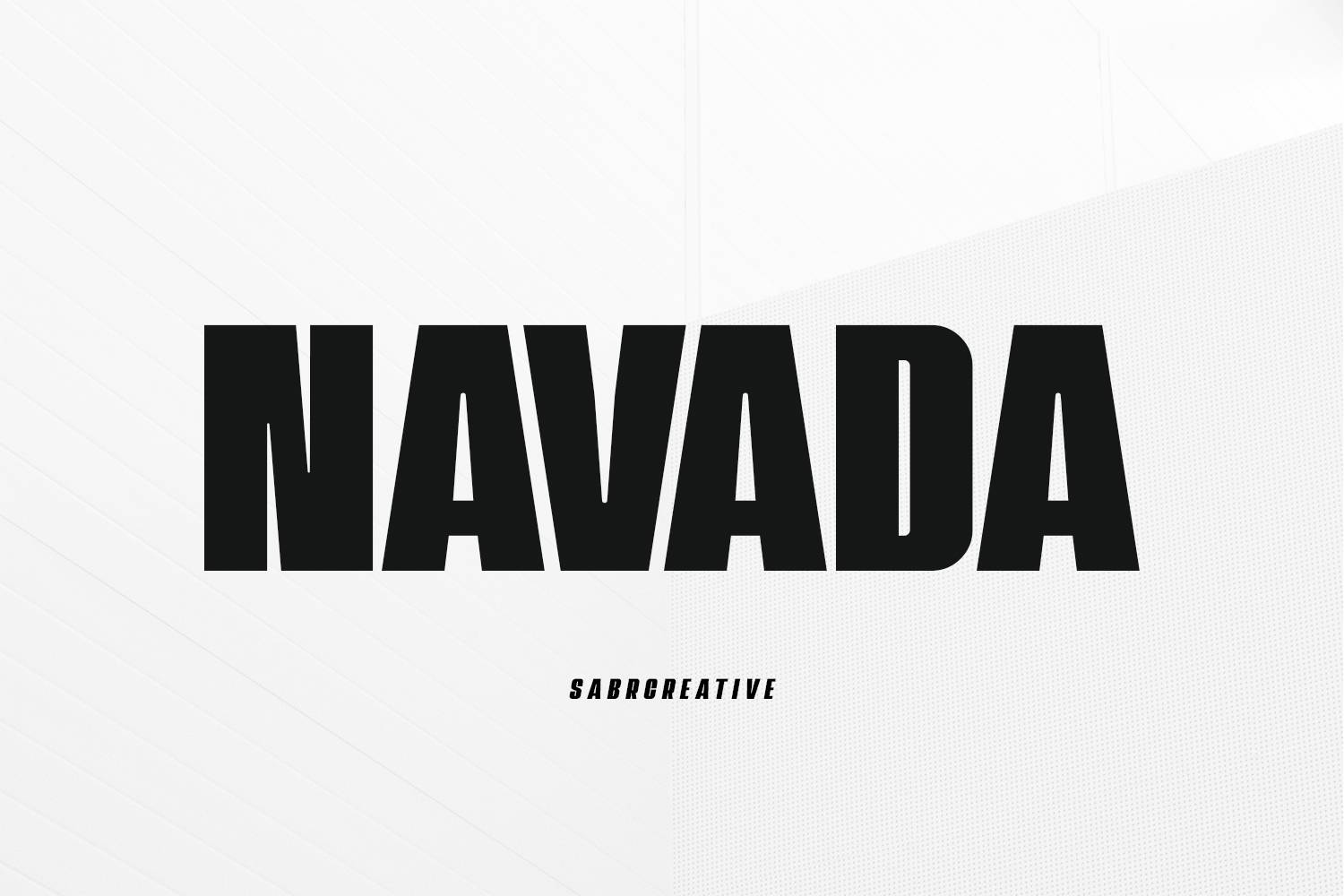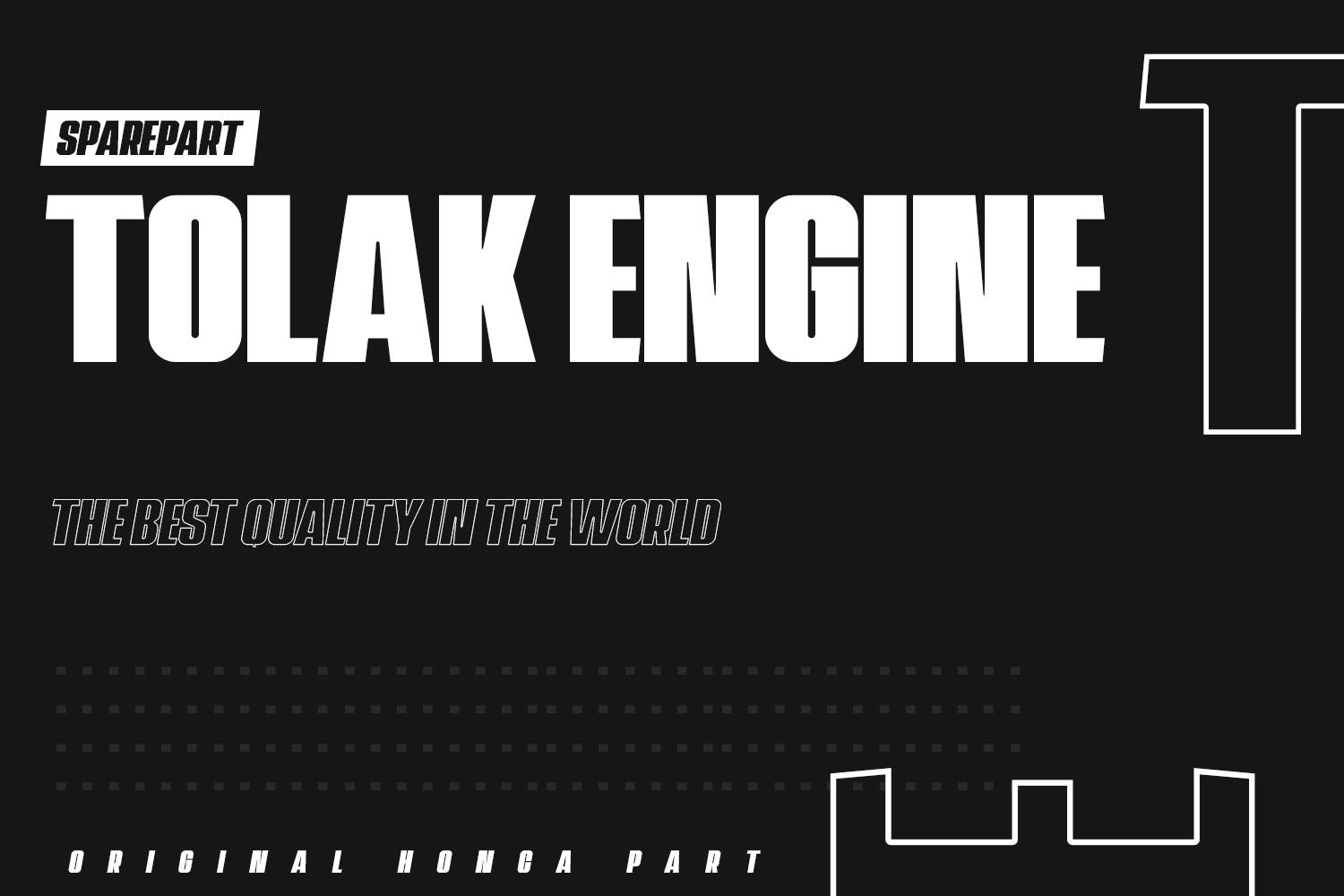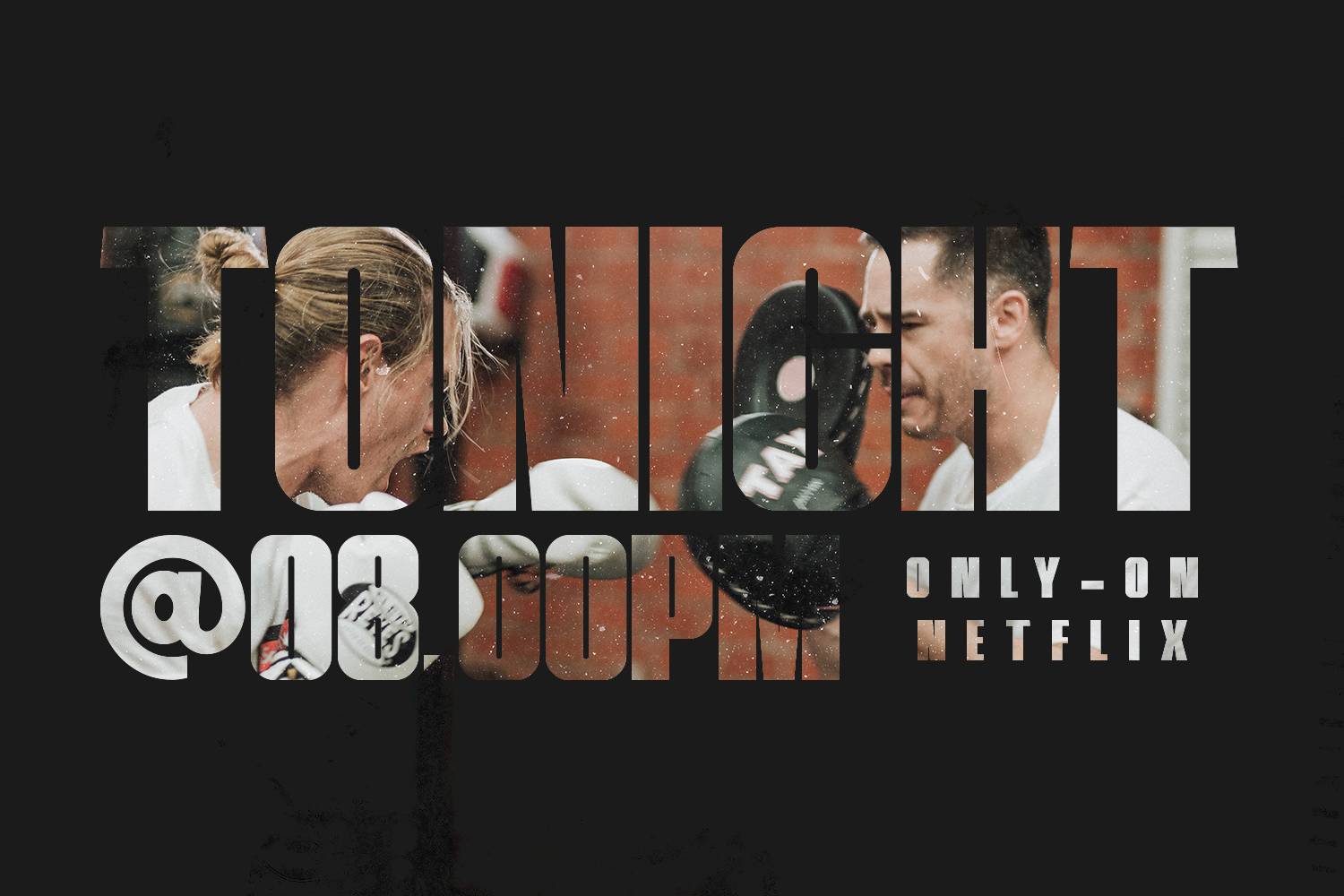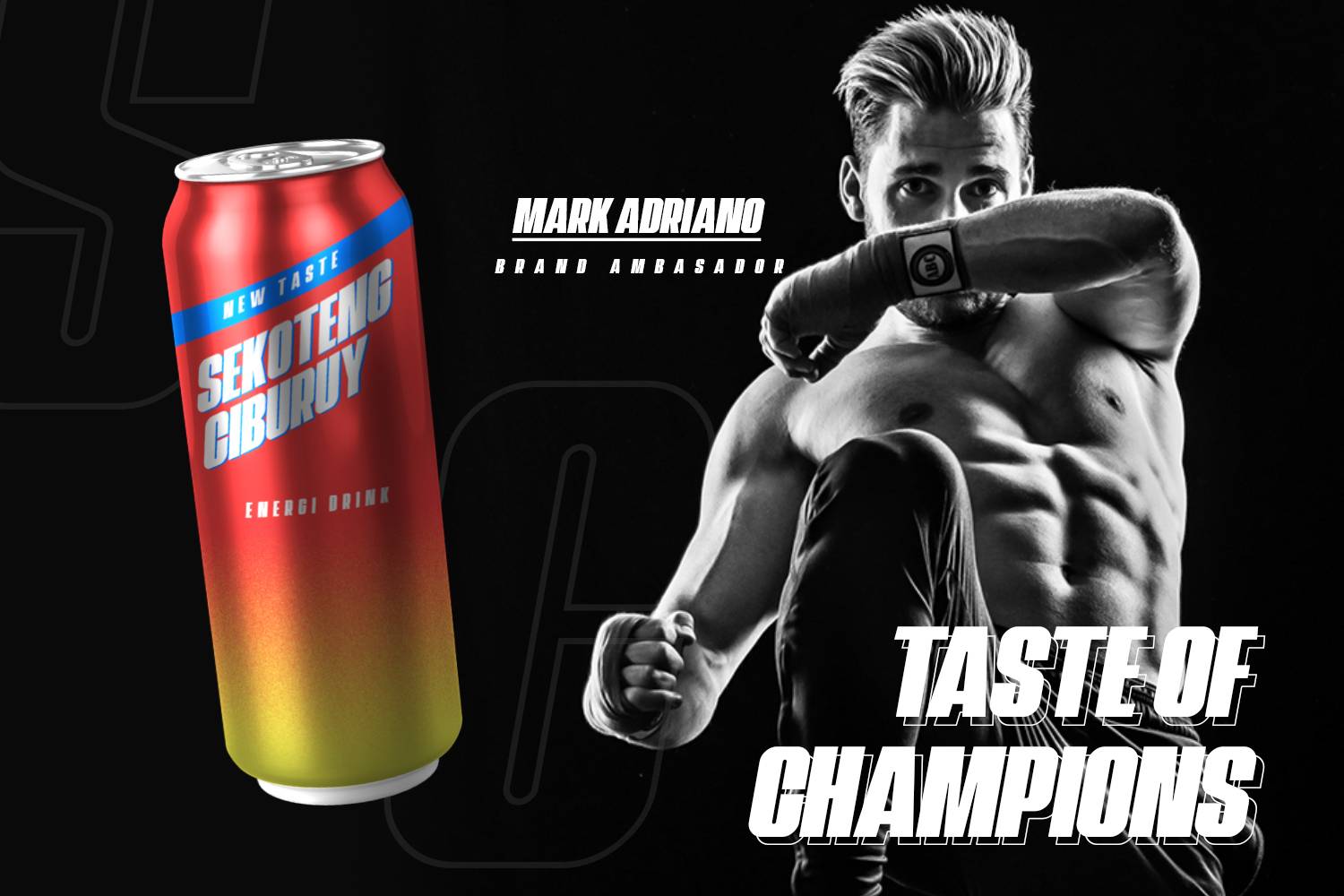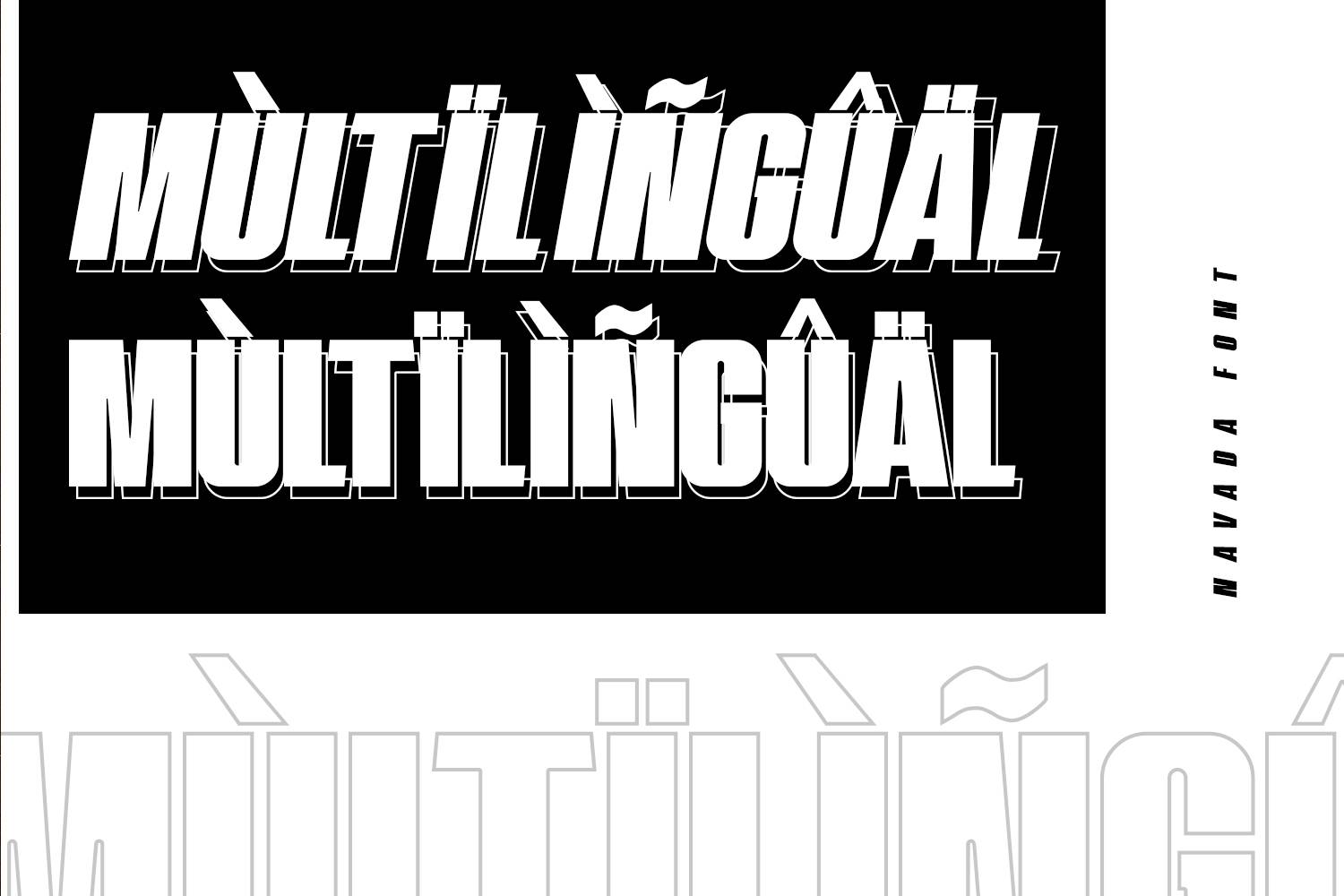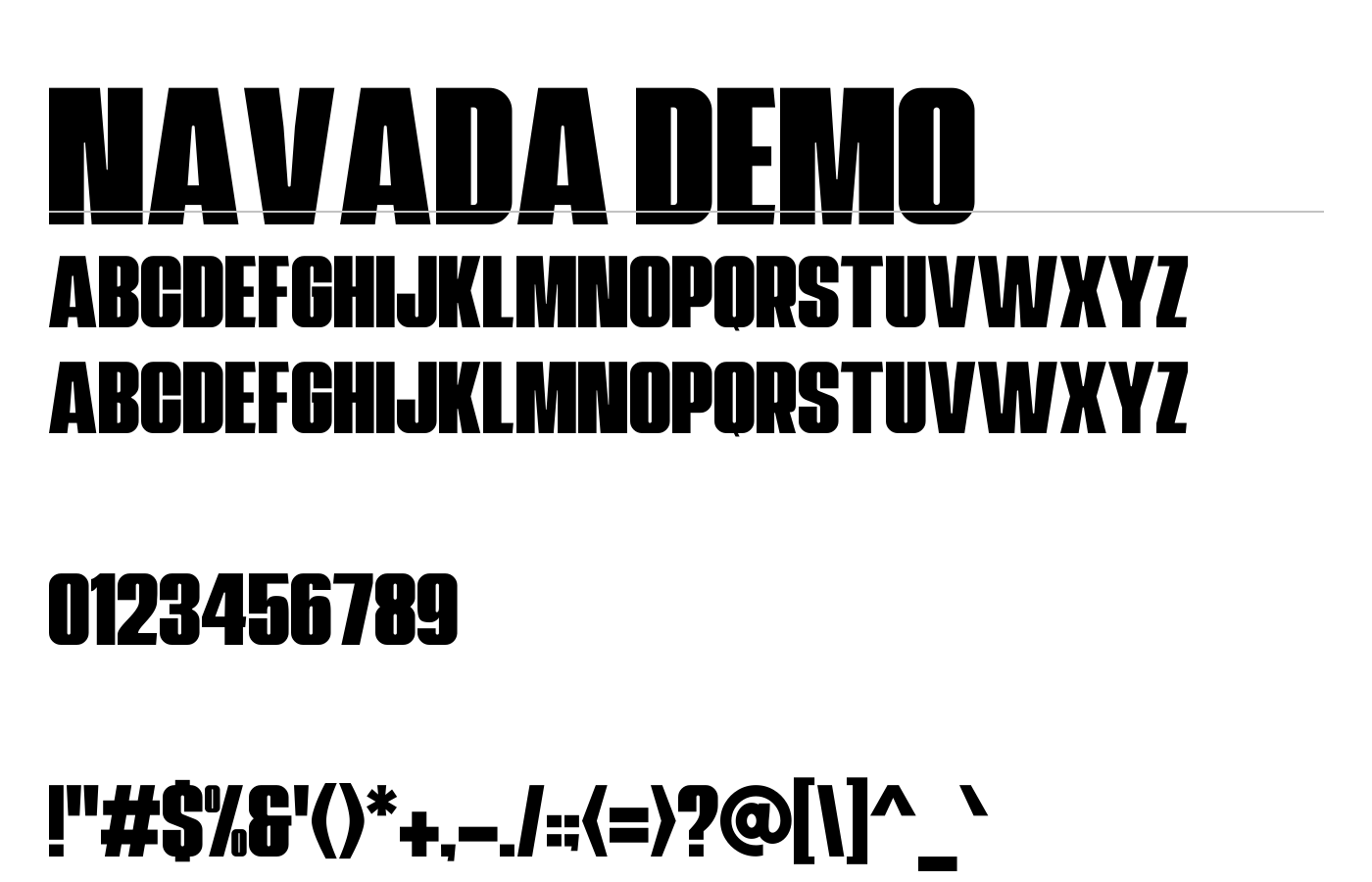
Navada is a bold, condensed sans serif font with a strong, confident presence thanks to its heavy weight and narrow width. Its modern, no-nonsense style suits headlines, logos, and branding projects where impact and clarity are key. Ideal for use in posters and editorial design, Navada conveys power and authority while maintaining simplicity and legibility.
Navada Font
About Navada Font
| Font family | Navada Font |
| Designer | Sabrcreative Studio |